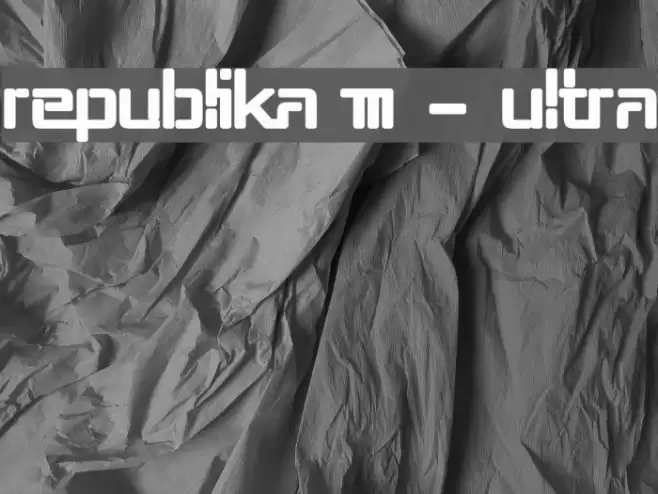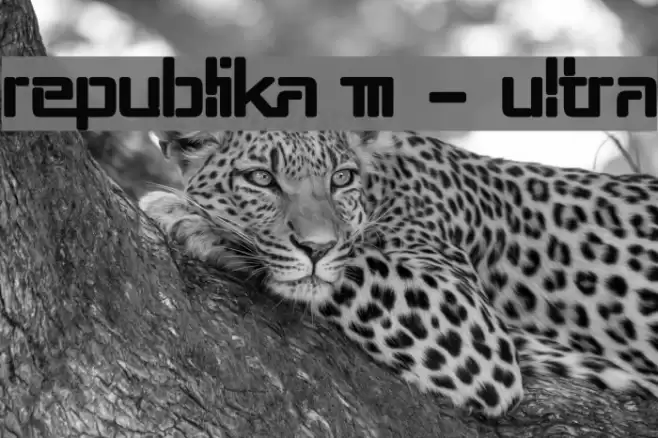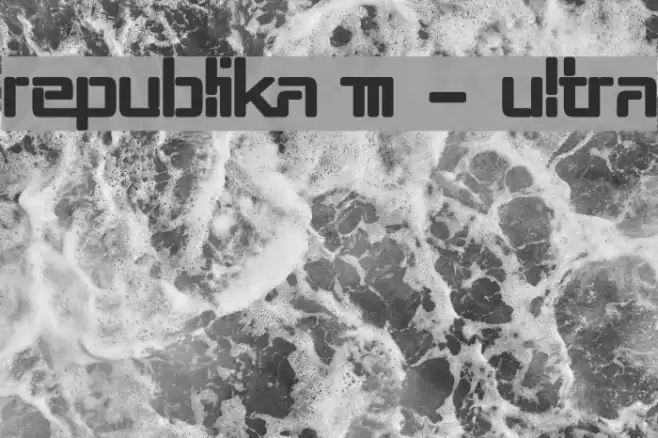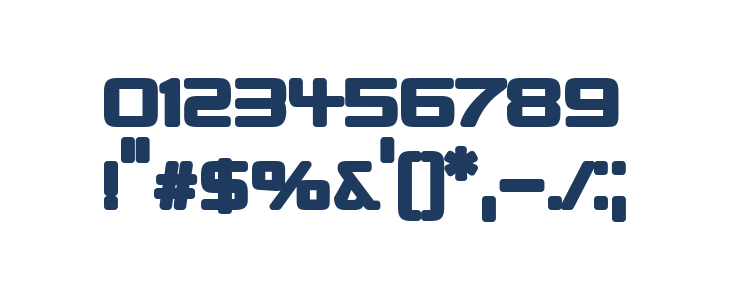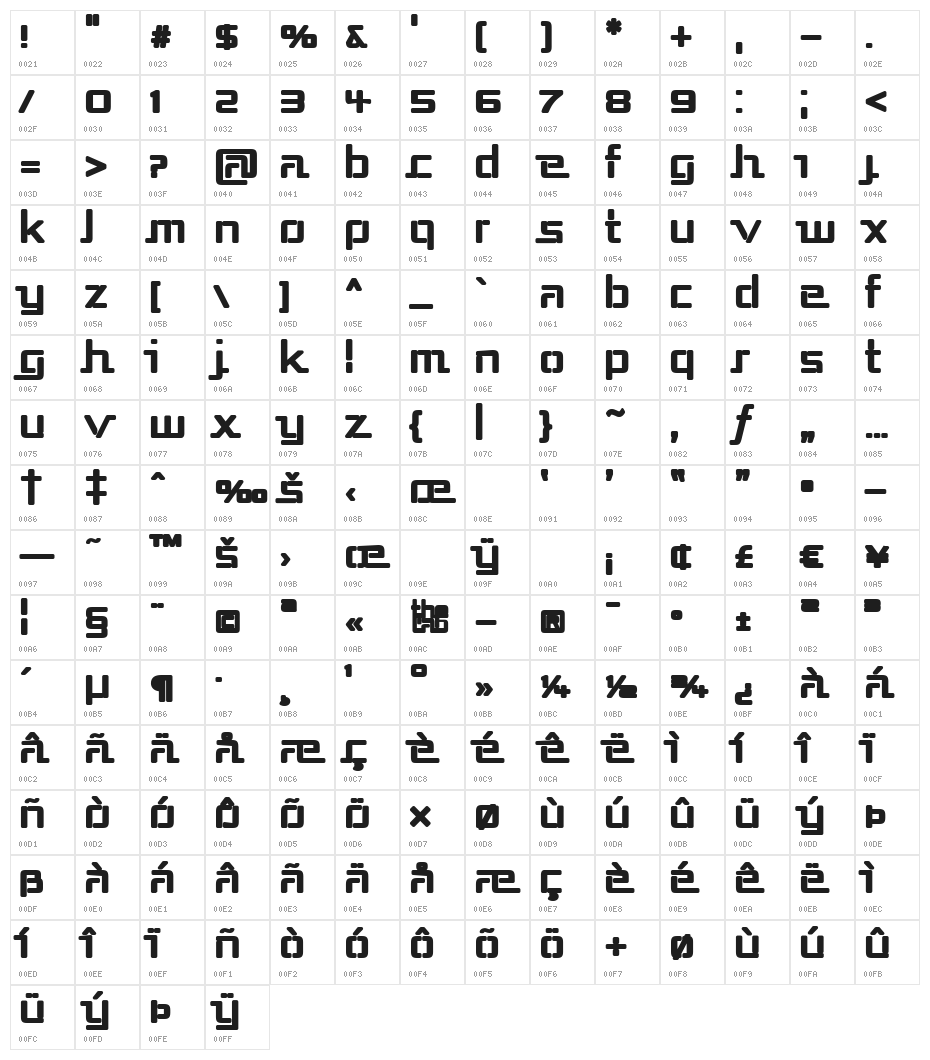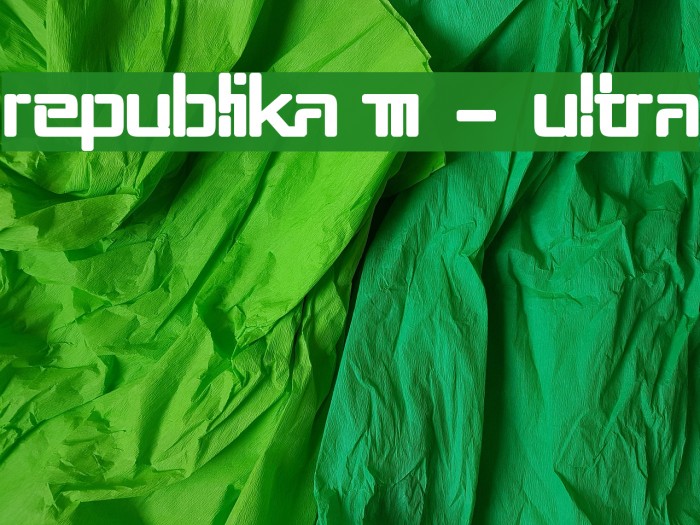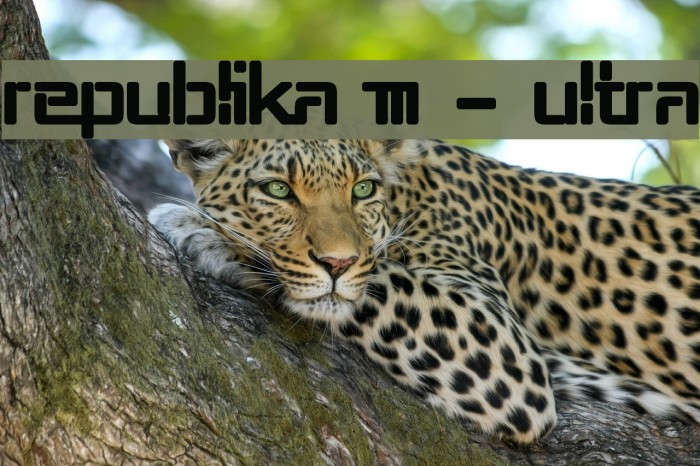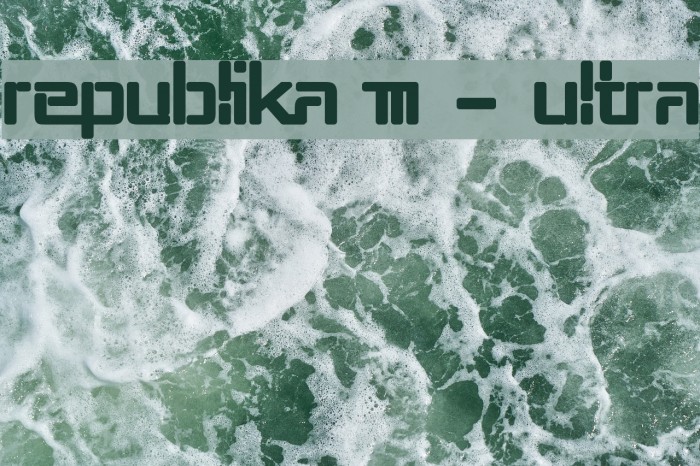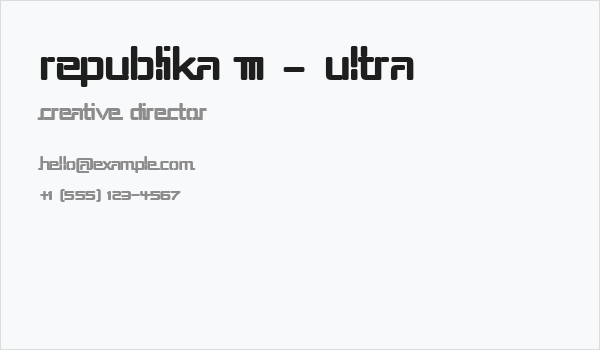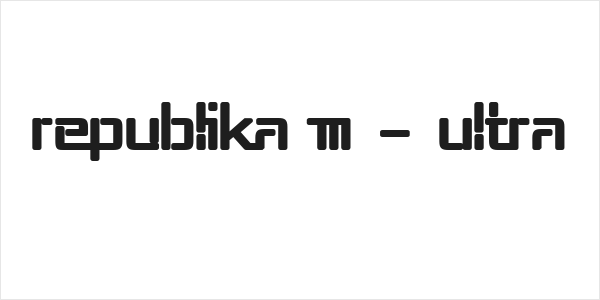
Republika III - Ultra Font
Republika III - Ultra Description
This font features a bold and futuristic design with a geometric structure. The characters are constructed with rounded edges and consistent stroke widths, giving it a modern and sleek appearance. The uppercase and lowercase letters maintain a uniform style, enhancing readability while adding a unique aesthetic. The numerals and special characters follow the same design principles, ensuring cohesion across all elements. Its distinct style makes it suitable for projects that require a contemporary and innovative look.
A bold, futuristic font with geometric and rounded characters from Uncategorized fonts.
- Proposed Projects: Ideal for technology branding, modern advertising, futuristic posters, and digital interfaces.